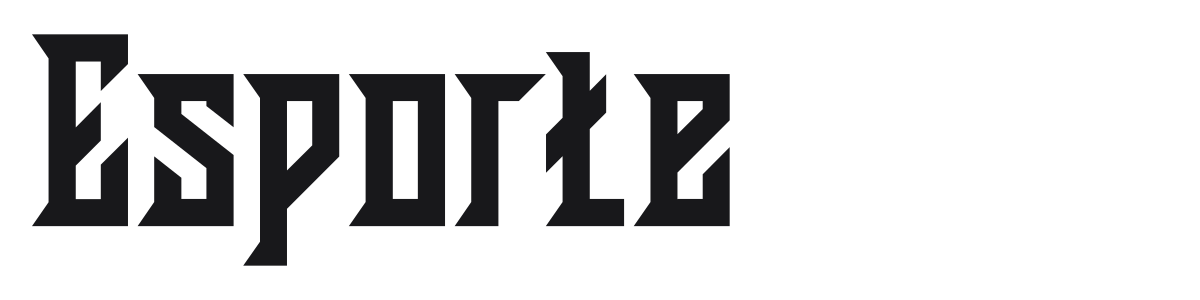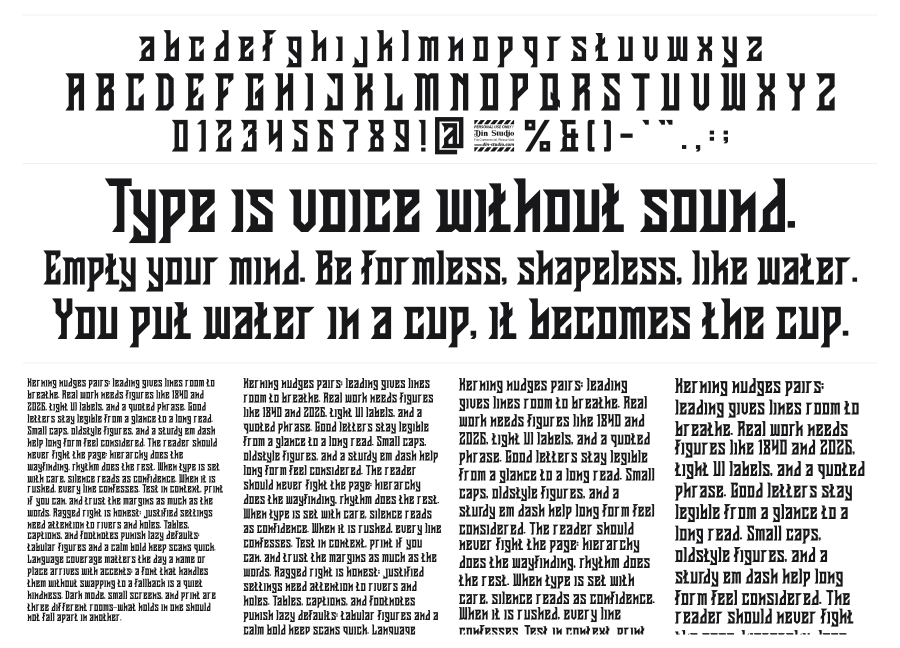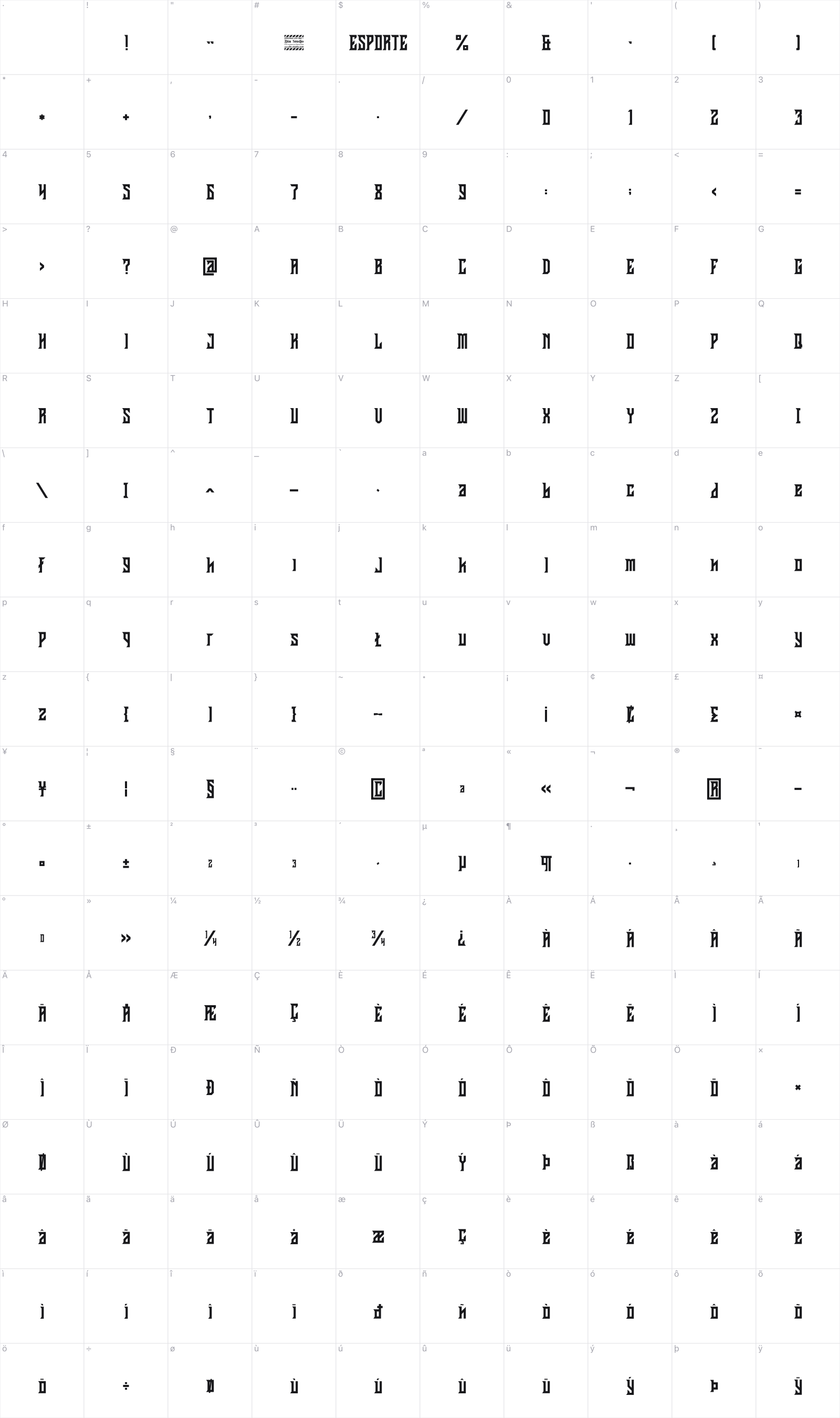
Esporte
Esporte is a bold gothic display font built on angular blackletter structure with a modern sports edge. Sharp terminals, notched counters, and heavy stroke weight give it an aggressive presence suited to team branding, jerseys, and event graphics. The design modernizes medieval gothic forms without softening their visual impact.